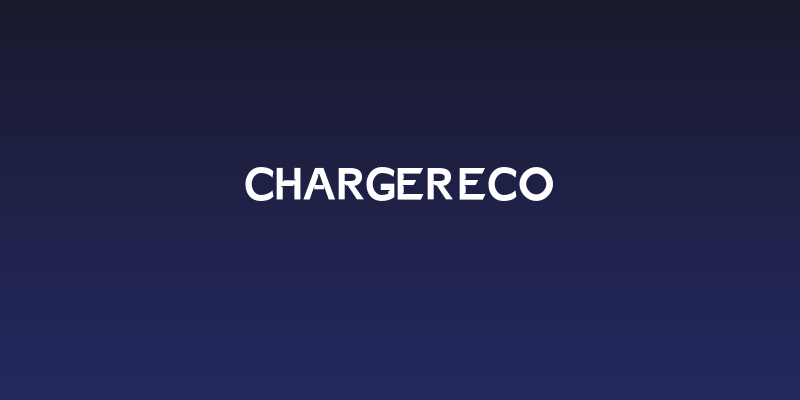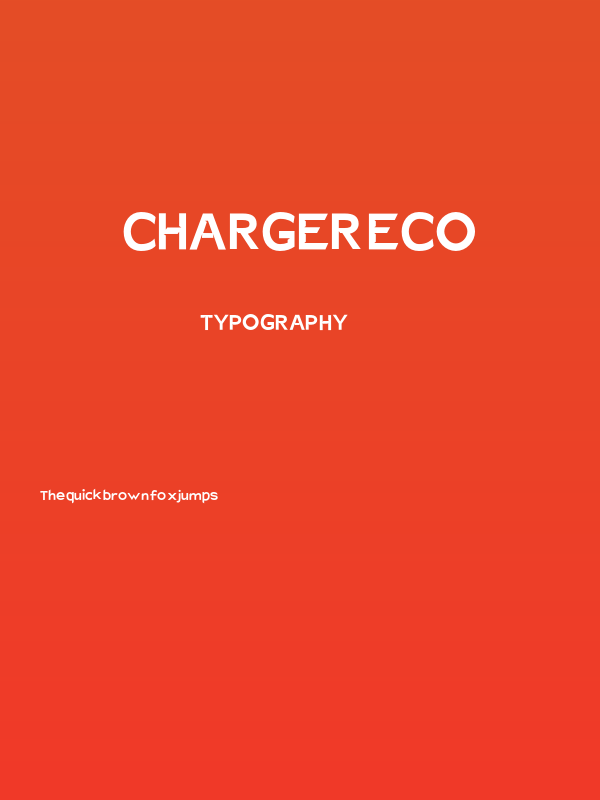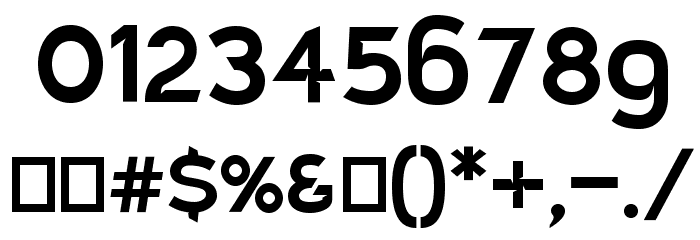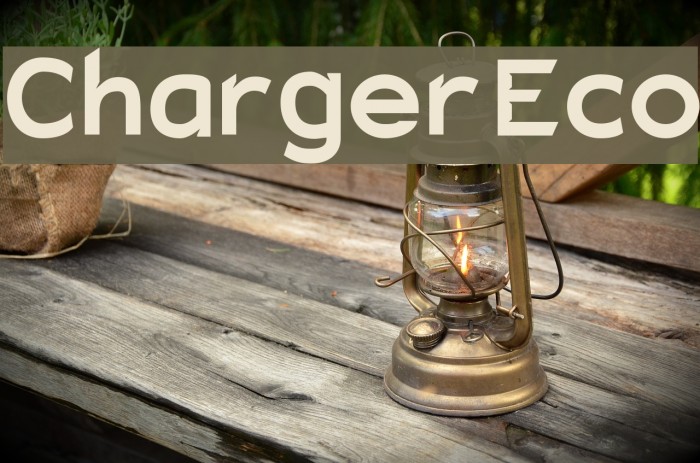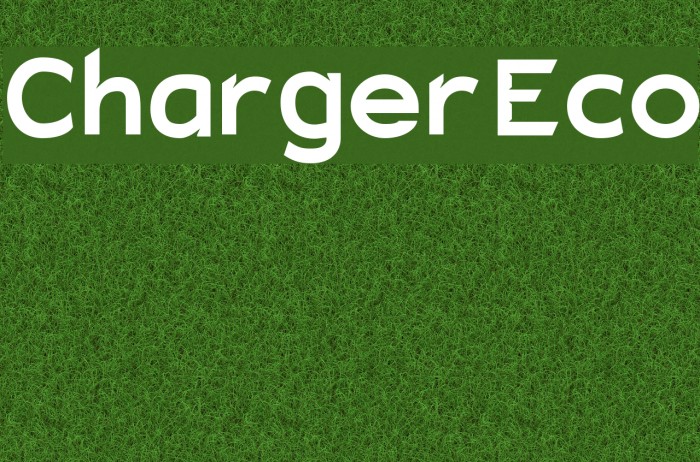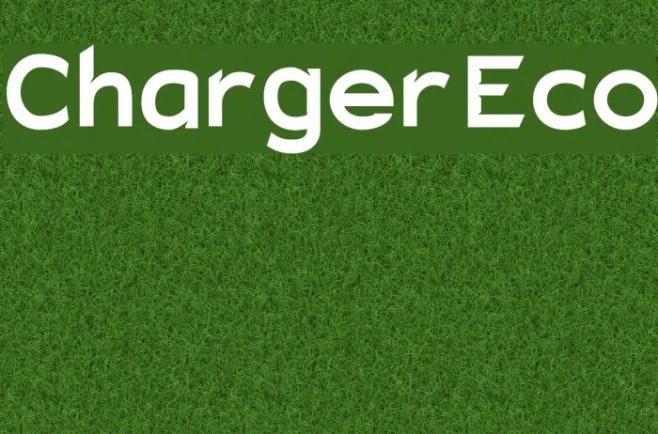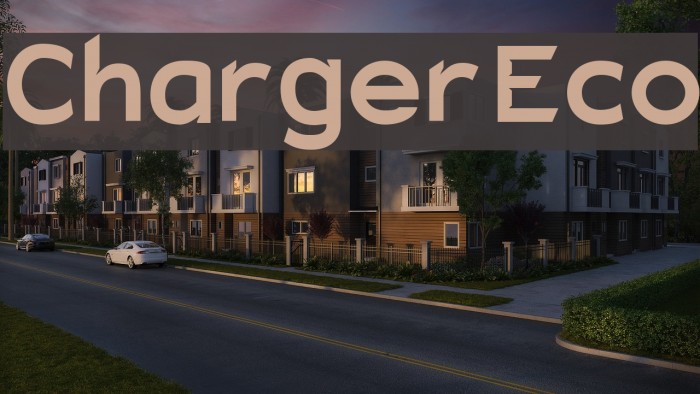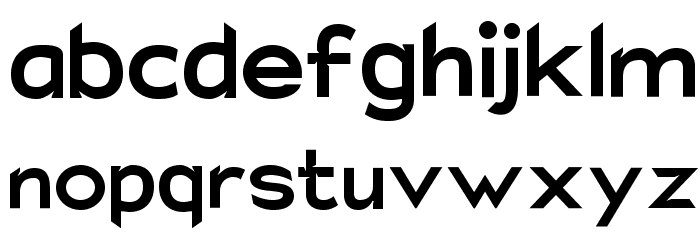
Charger Eco Font
Charger Eco Description
This font features a bold and modern sans-serif style with clean, geometric lines. The uppercase letters are uniform in height, creating a strong visual impact, while the lowercase letters maintain a consistent roundness, adding a touch of friendliness. The numerals are clear and easily distinguishable, making them suitable for various applications. Special characters are well-defined, ensuring versatility in design projects. The overall appearance is sleek and contemporary, making it ideal for digital and print media.
| Use Case | Headlines, Logos, Digital media |
| Proposed Projects | Ideal for branding, advertising, digital media, and editorial design. |